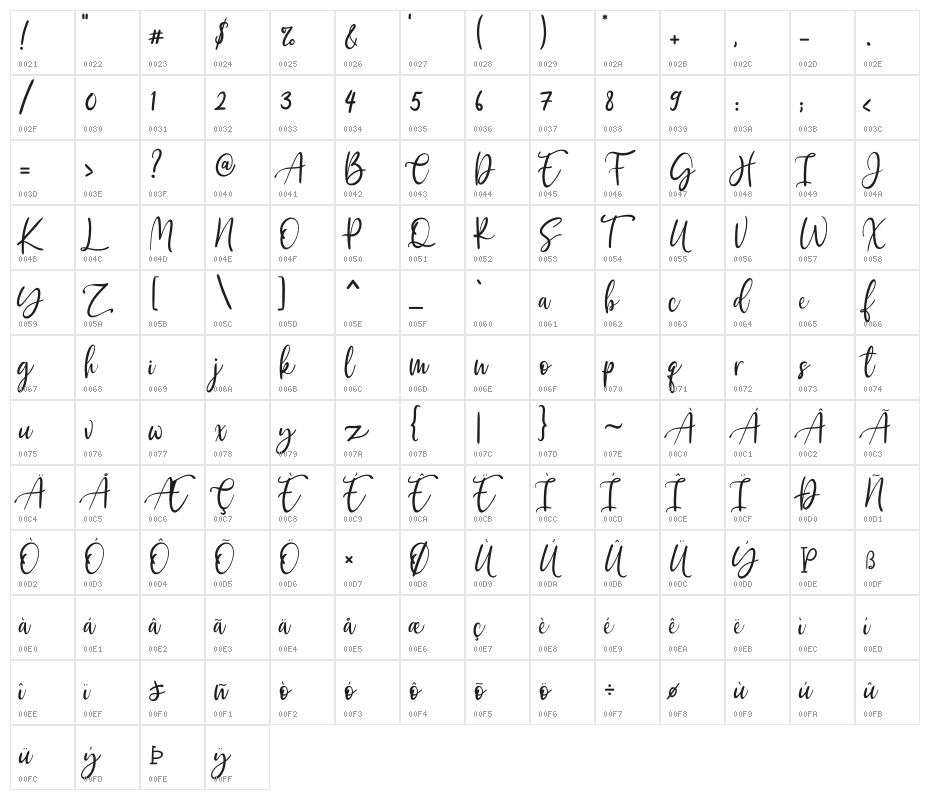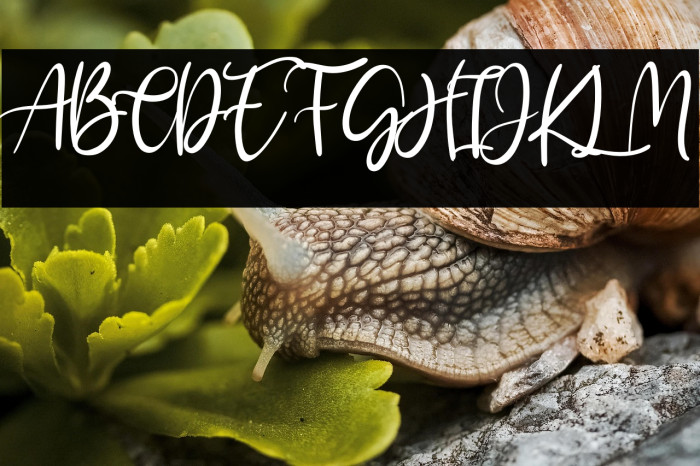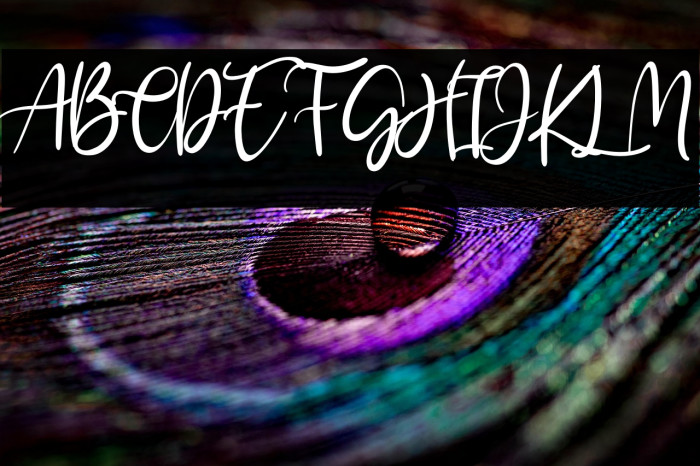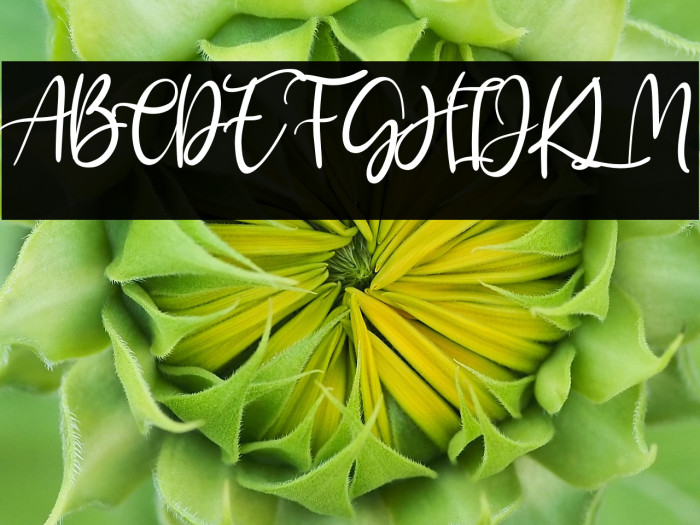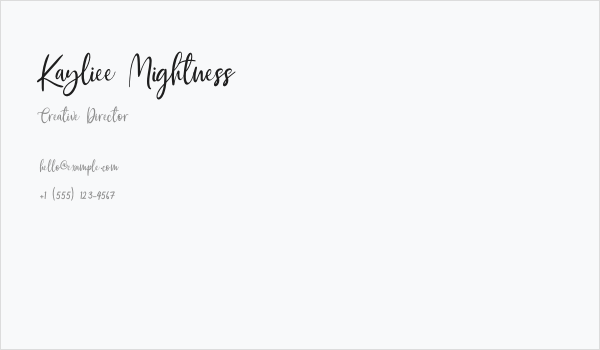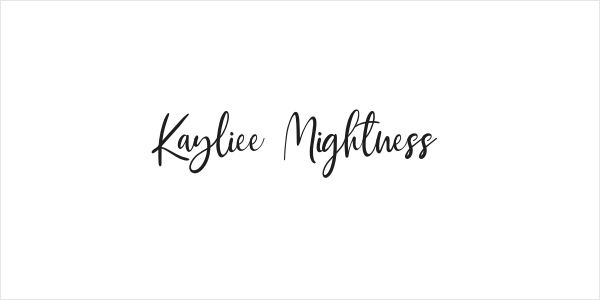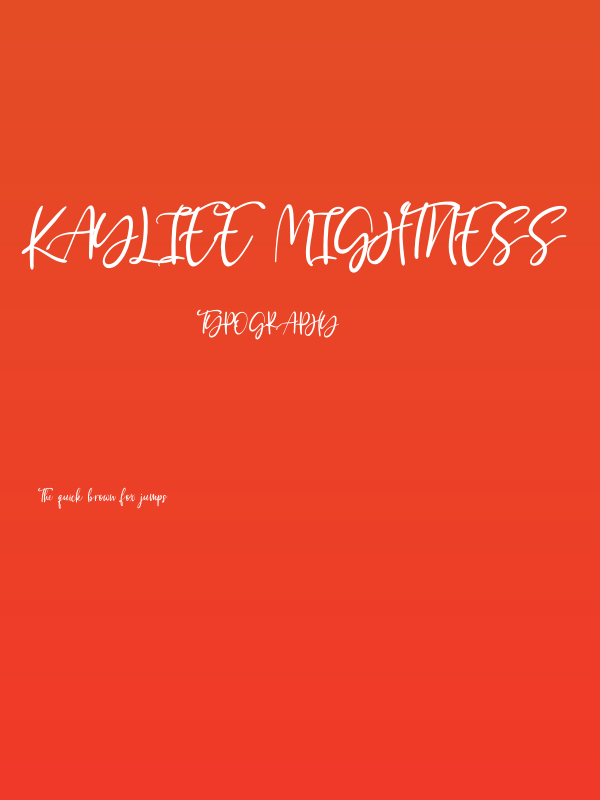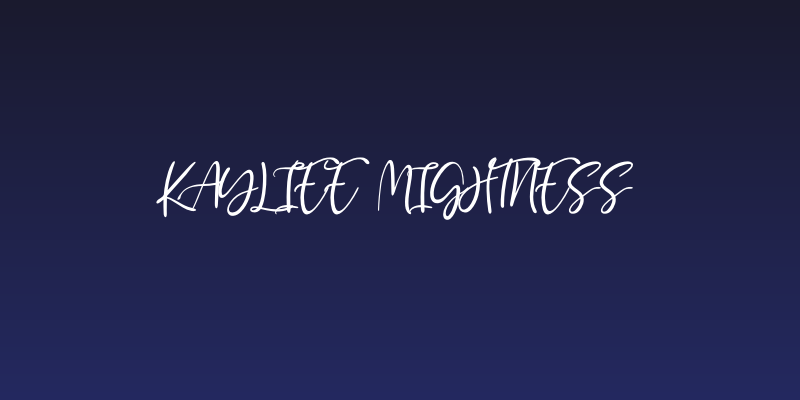
Kayliee Mightness Font
Kayliee Mightness Description
A flowing, cursive script font with a handwritten style, featuring smooth curves and varying stroke thickness.
| Use Case | Logos, Headlines |
| Proposed Projects | Invitations, greeting cards, personal branding. |